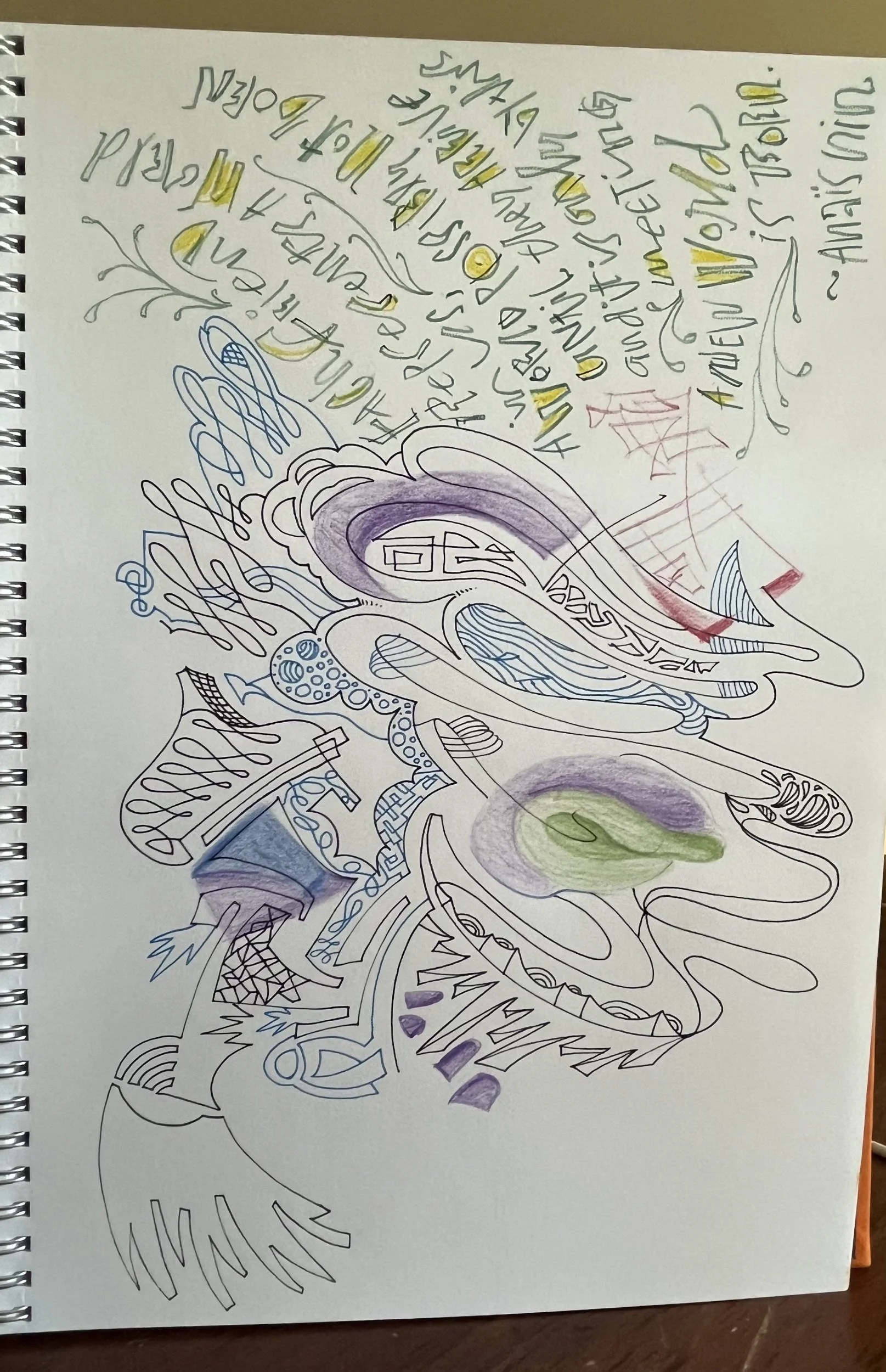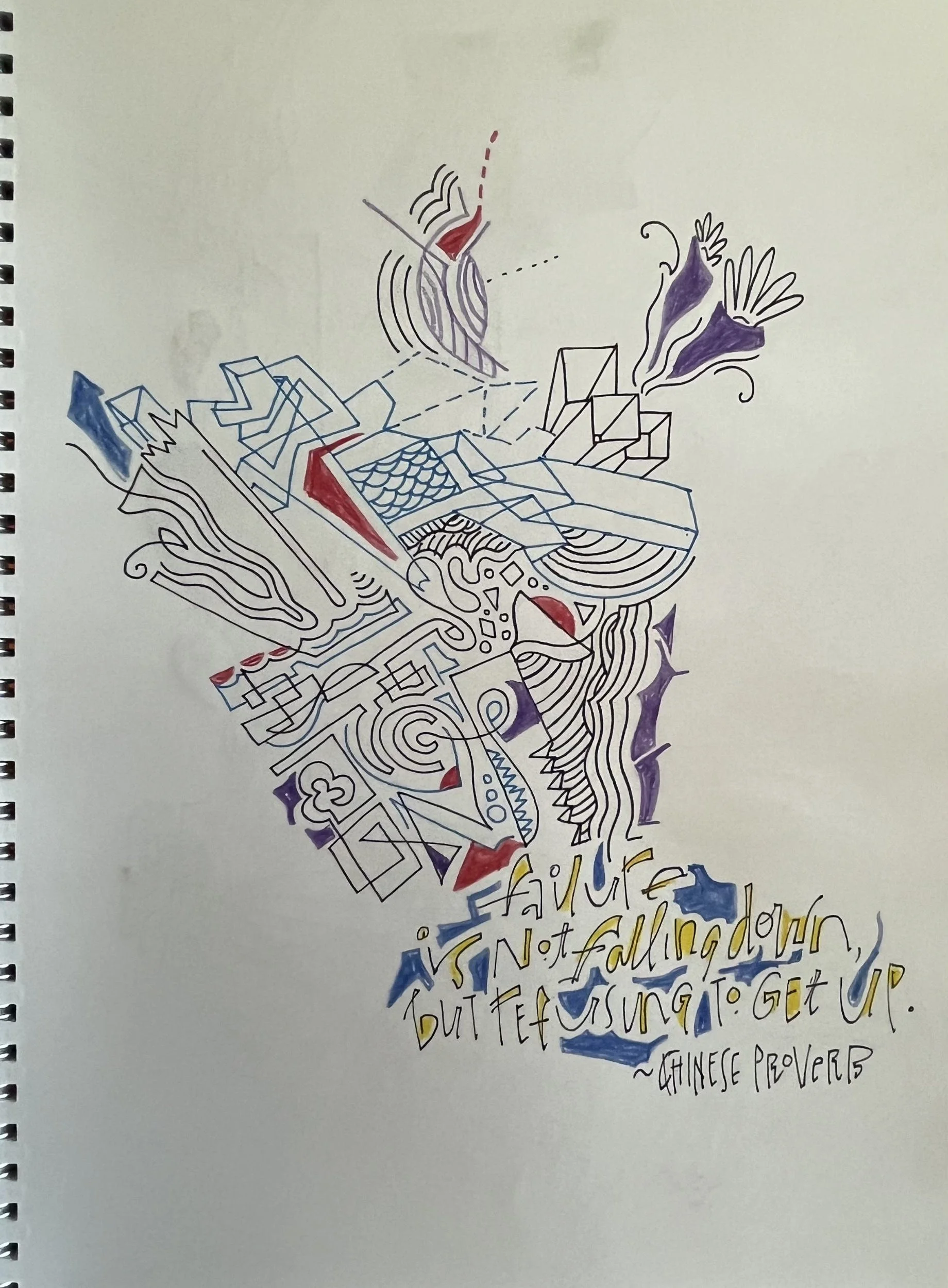
Every day was a new adventure at my graphic design job. I designed a print ad, a digital ad, or a motion graphic, a logo, whatever. All day I was on a computer, jumping between software, searching for resources and creating designs. To calm my brain after a day’s work I started doodling in a sketchbook with color pencils and pens. I discovered doodling not only calmed my brain, it challenged my personal lettering practice in an unintended way.
The initial doodles were scribbles literally. My gestures were quick and my intention was thoughtless. The practice was a good counter to my work day flow.
First scribble in my sketchbook. I had to start somewhere.
The calming effect came when I slowed down. I started asking questions of my doodle practice. How would the next mark look? Where should I place it? Does the overall doodle need to be a cohesive composition? How will color accents work with this unintended composition? How will lettering look with my doodles? These daily exercises became a meditative practice.
Slowing my hand movements and gestures affected my doodles.
My doodles evolved. I incorporated doodles into my lettering practice. Letters became art. I saw them hanging in a studio space, printed on a restaurant menu, painted murals, and as three dimensional sculptures in a courtyard or park.
Doodle with lettering of a Chinese Proverb
Evolved doodle with lettering. Quote attributed to Anais Nin.
Doodling, what started as a practice to calm my brain led to a different way to practice hand lettering. Still doing it and loving every minute of it.